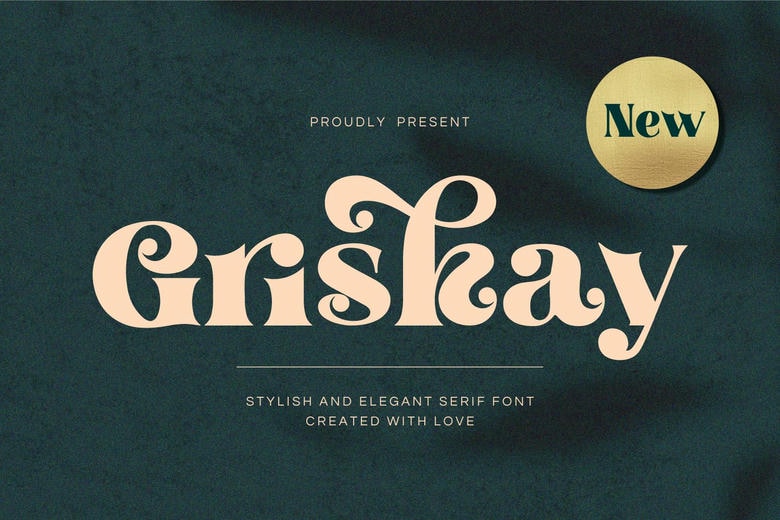
Griskay Font
Griskay is a bold, chunky lettered and stylish serif font. Fall in love with its incredibly versatile style and use it to create gorgeous wedding invitations, beautiful stationary art, eye-catching social media posts, and much more!
Griskay Serif Font